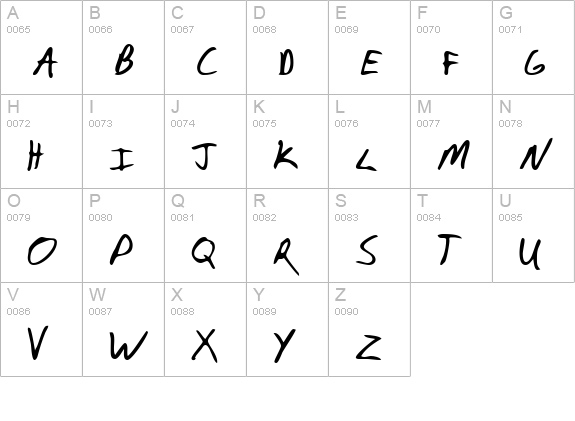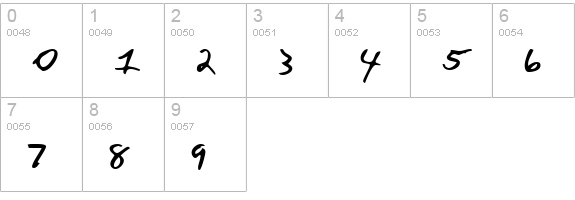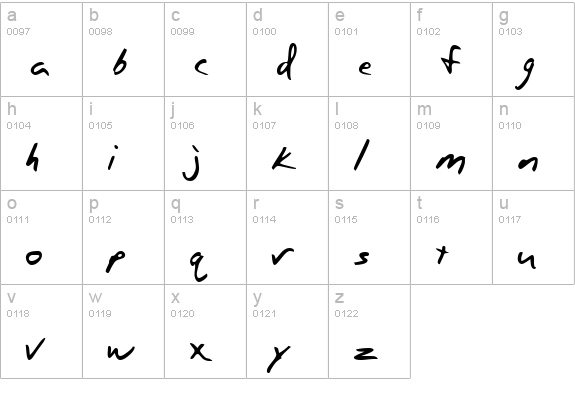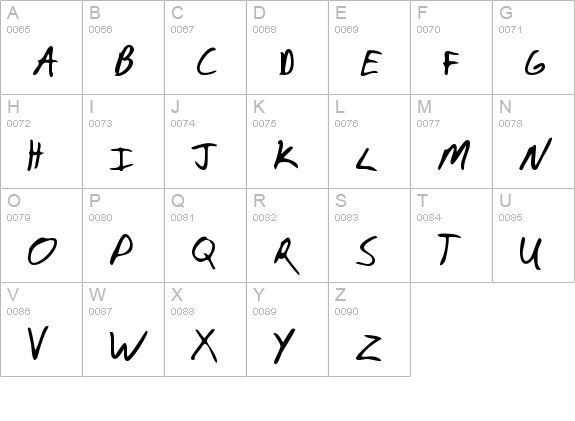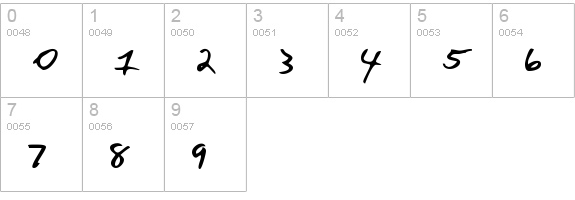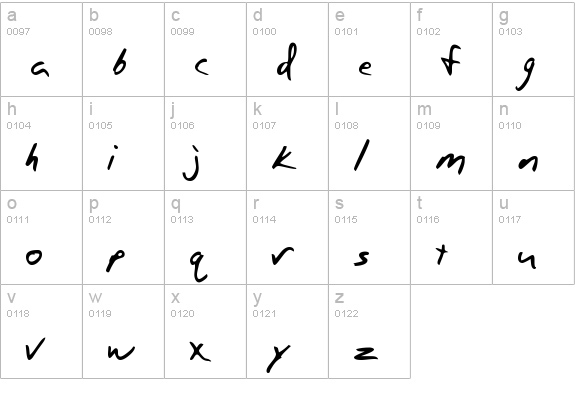
GarthsHand Regular is the standard, neutral variant in the GarthsHand typeface family \xE2\x80\x94 well suited to general body text, paragraphs, and standard typographic work.
GarthsHand Regular font is a charming and versatile typeface that exudes a sense of warmth and friendliness. Its smooth curves and flowing lines give it a handwritten appearance, making it perfect for adding a personal touch to your designs. Whether you're working on invitations, greeting cards, or social media graphics, GarthsHand Regular font will bring a touch of whimsy and elegance to your projects. The best part? GarthsHand Regular font is completely free to download at FontsMarket.com. This means you can access this beautiful font without any cost, making it a valuable addition to your font library. Don't miss out on the opportunity to enhance your designs with the unique charm of GarthsHand Regular font - download it today and let your creativity shine!